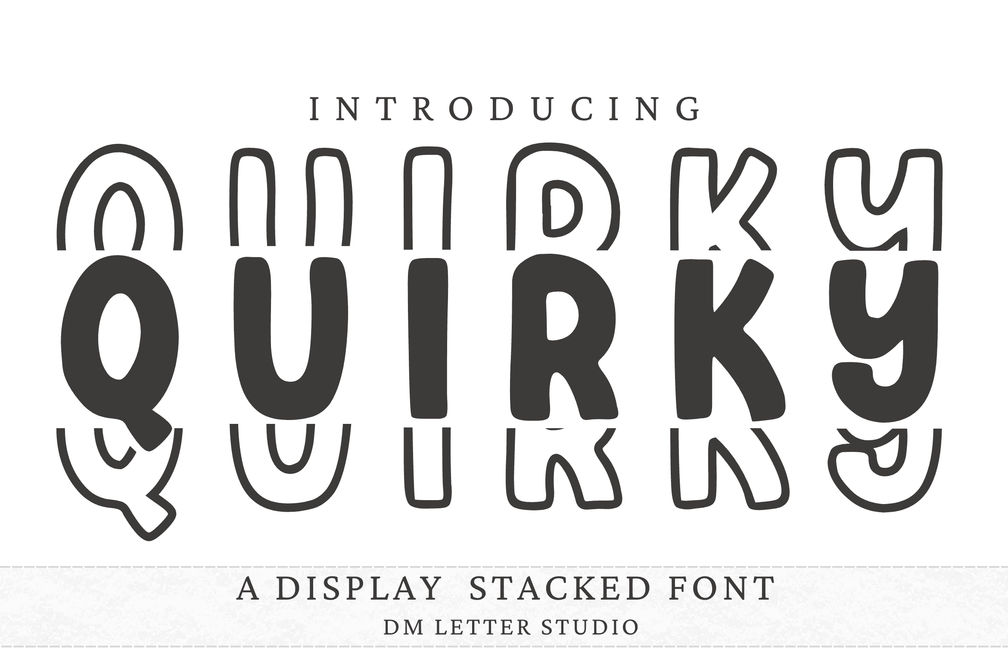
Quirky Stacked
Quirky Stacked – Playful & Bold Display Font
Quirky Stacked is a fun and bold display font with stacked letterforms that bring a lively and modern twist to your typography. With its cheerful curves and layered alignment, this typeface is perfect for posters, kids’ crafts, branding, product packaging, and playful quotes. It adds a vibrant personality to every design.
• Stacked & Bold Design: Eye-catching uppercase characters with a layered, vertical style.
• Playful & Youthful Vibe: Great for school projects, children’s designs, and cheerful branding.
• High Readability: Despite its stacked style, it maintains clear legibility for display purposes.
• Complete Character Set: Uppercase, lowercase, numbers, punctuation, and multilingual support.